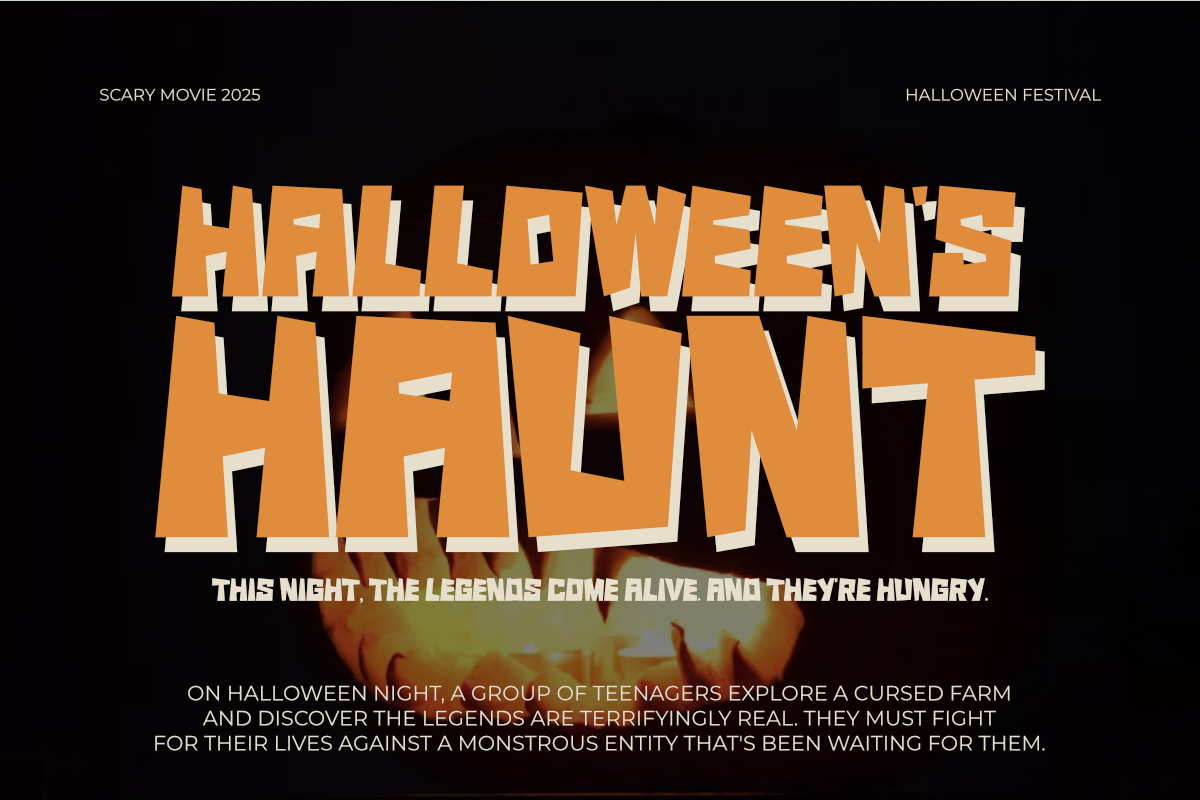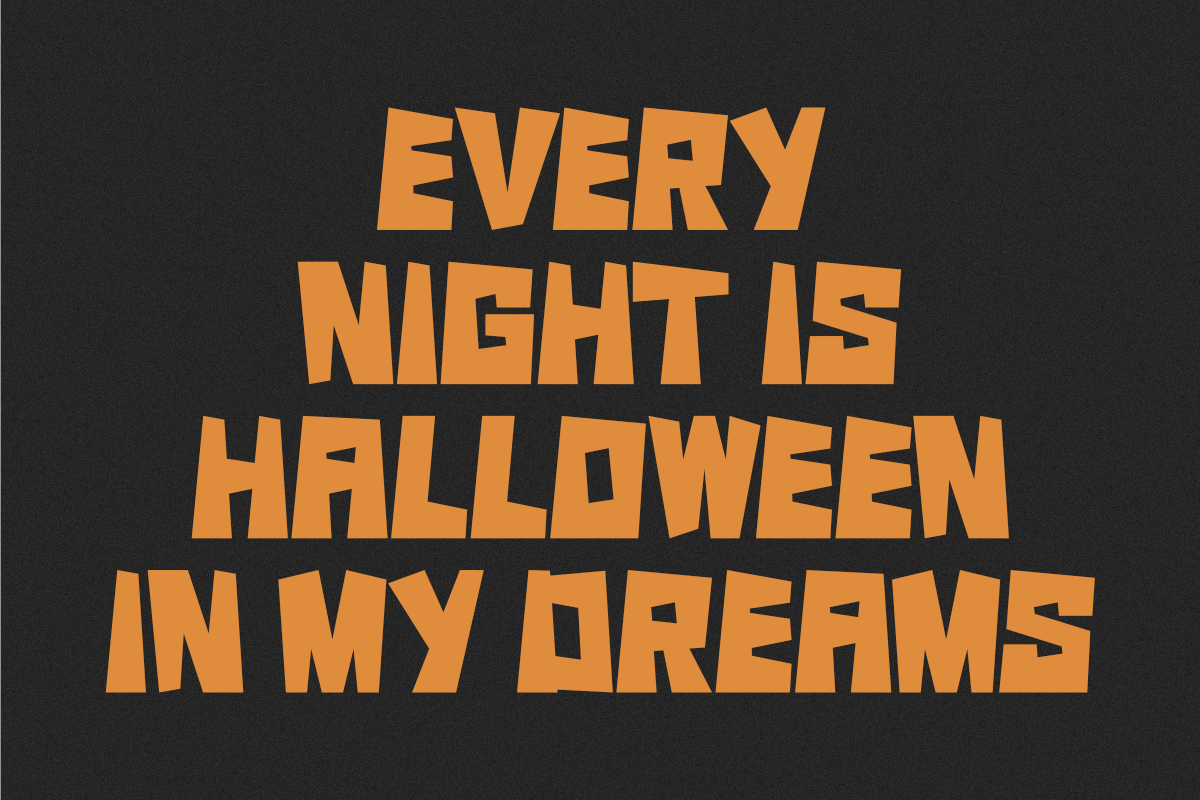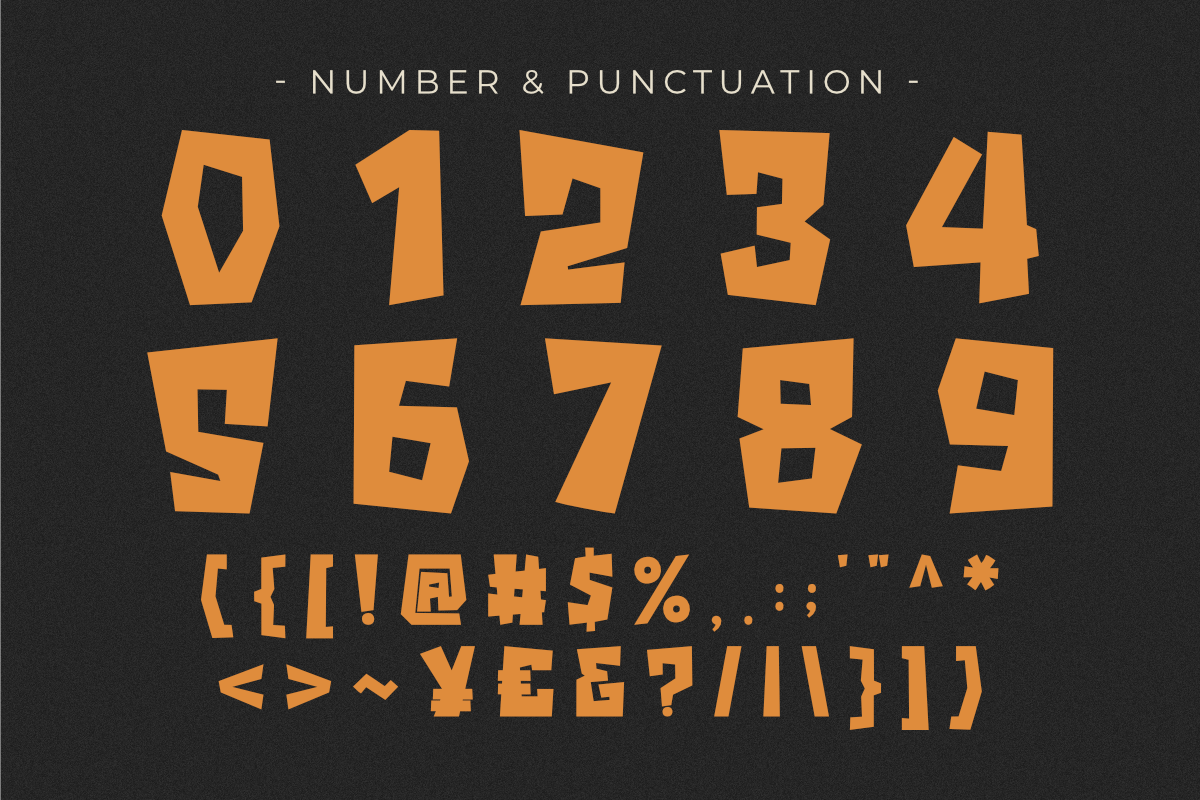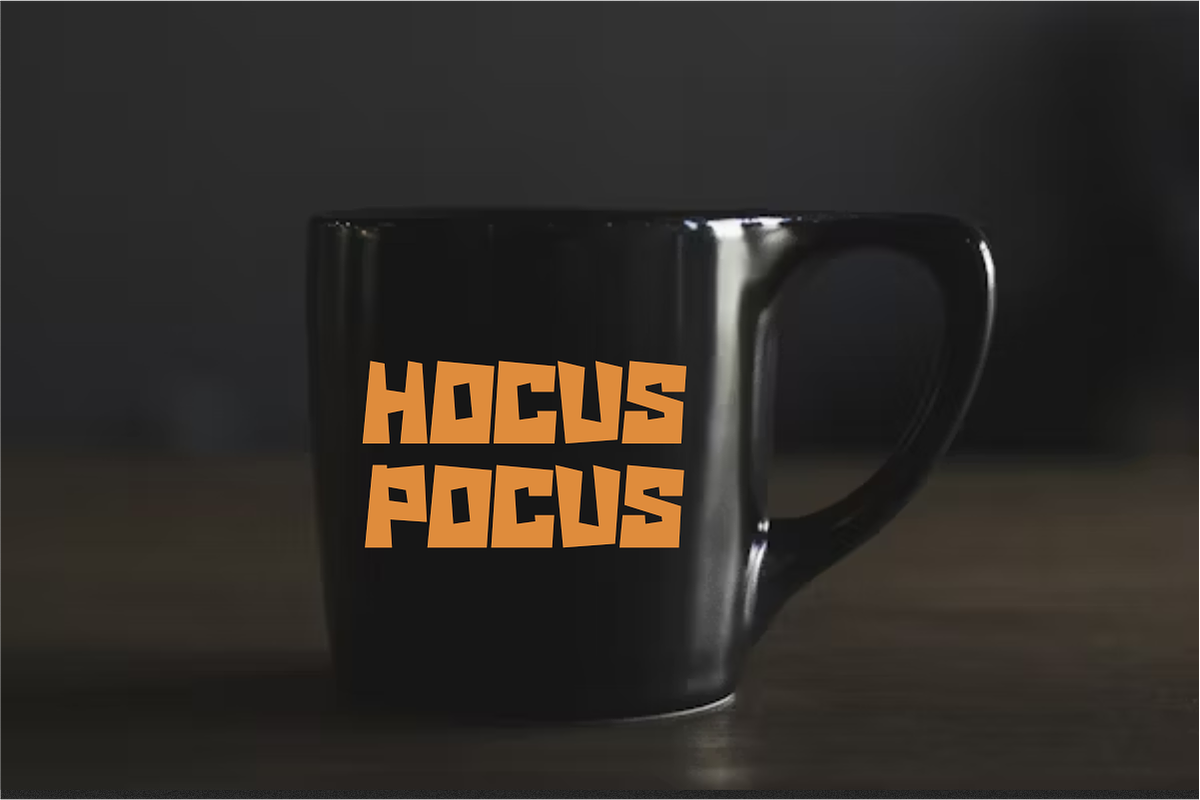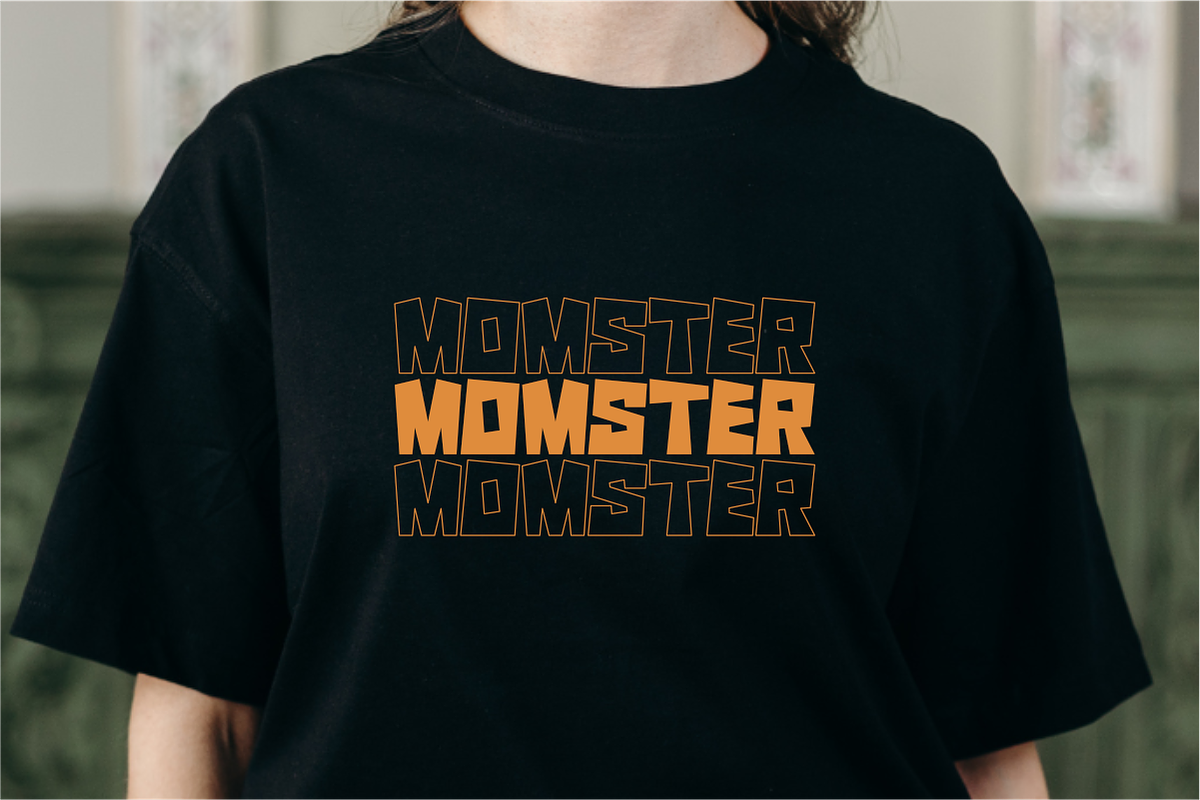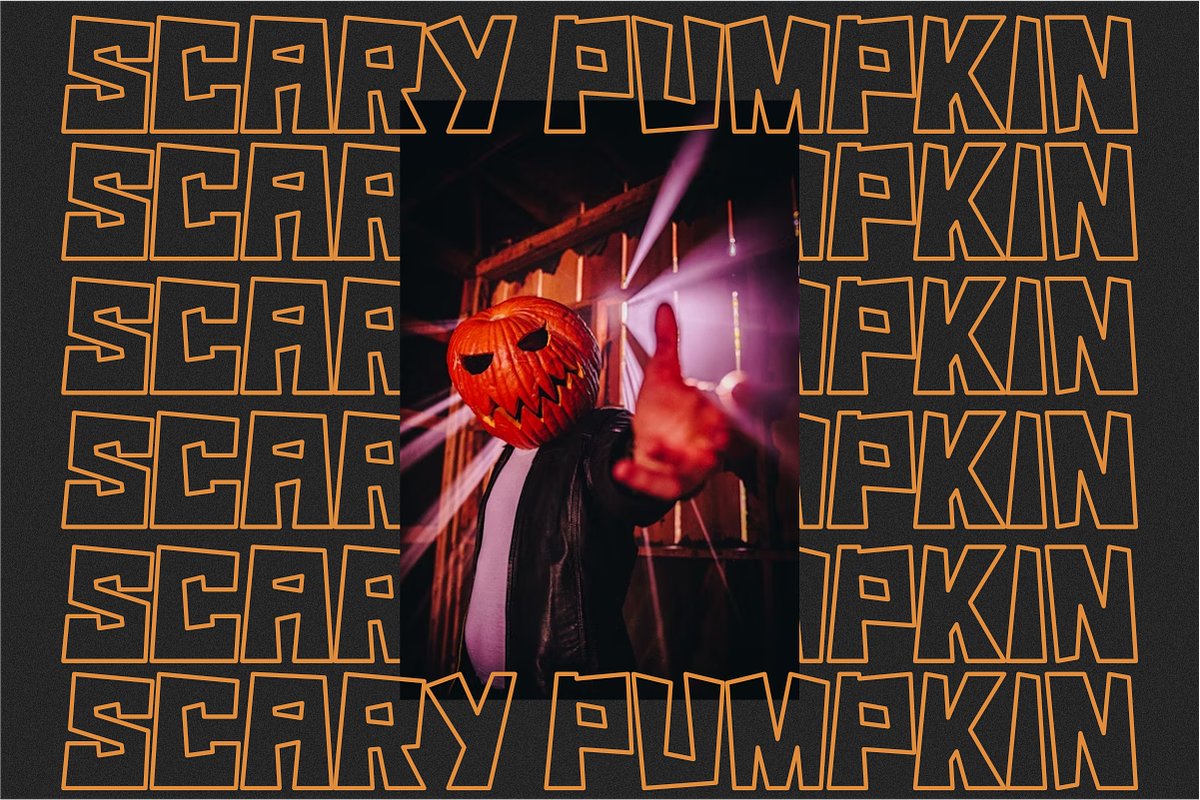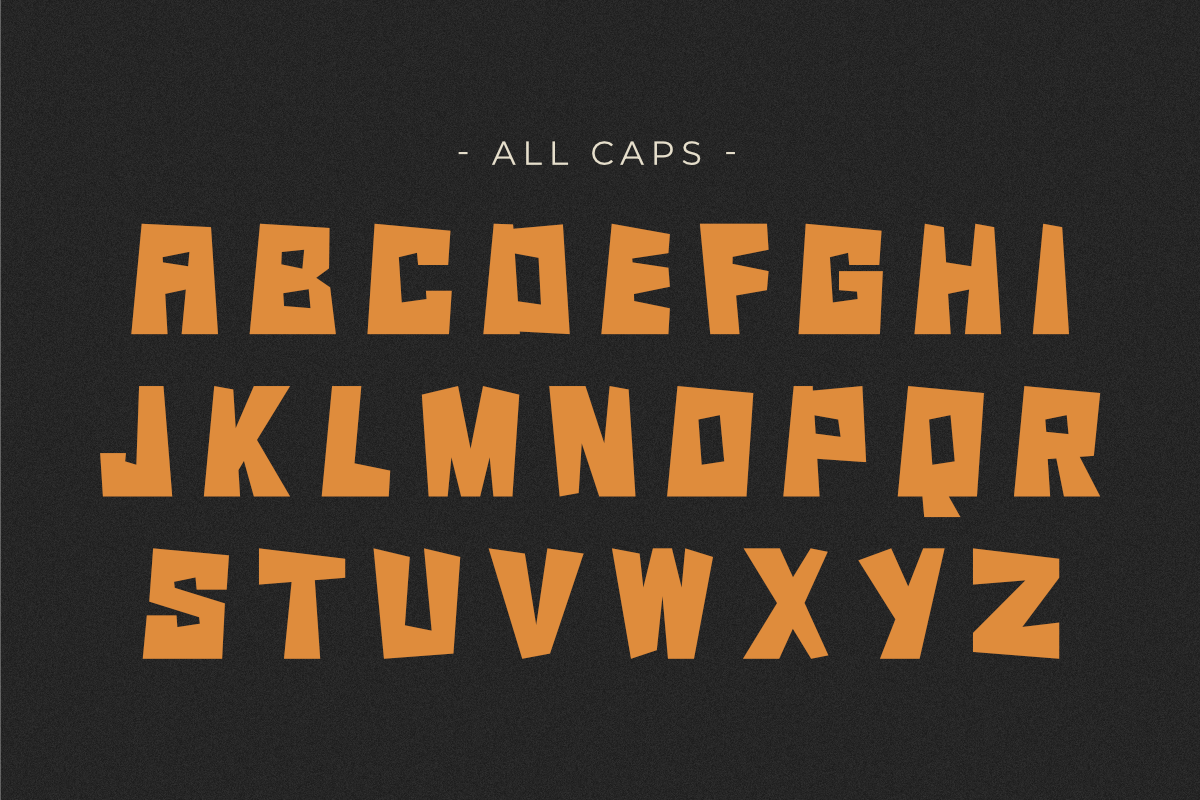
Scary Monster - Halloween Display
Scary Monster is a bold and unique display font designed to bring a fun, yet terrifying vibe to any project. Its thick, uneven letterforms and jagged edges give it a playful, hand-drawn look that’s perfect for creating an authentic spooky aesthetic. This font is an excellent choice for movie posters, Halloween party invitations, children's books, and any branding that needs a distinctive, eye-catching monster theme.